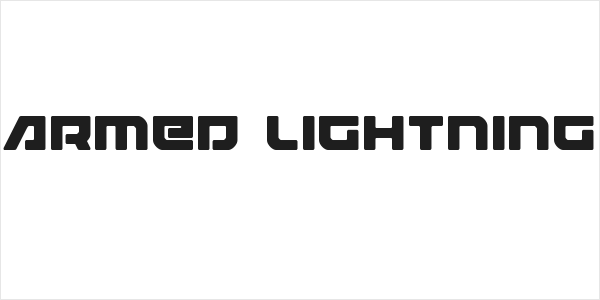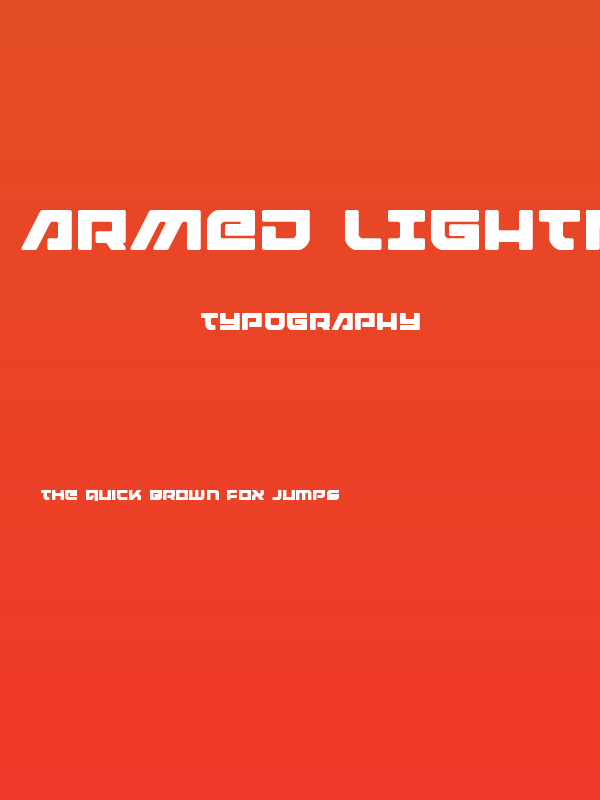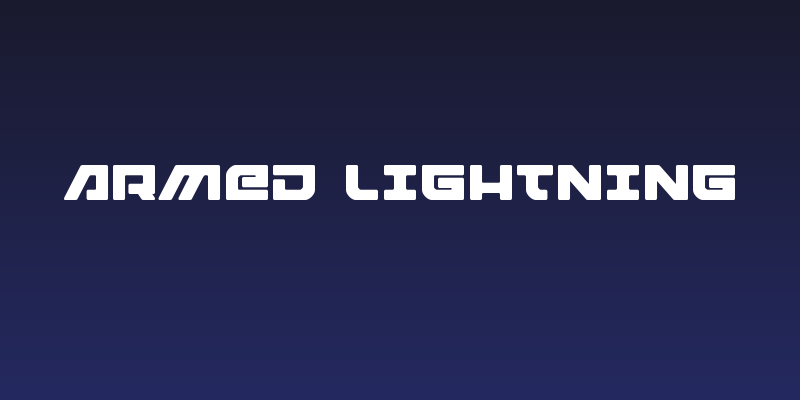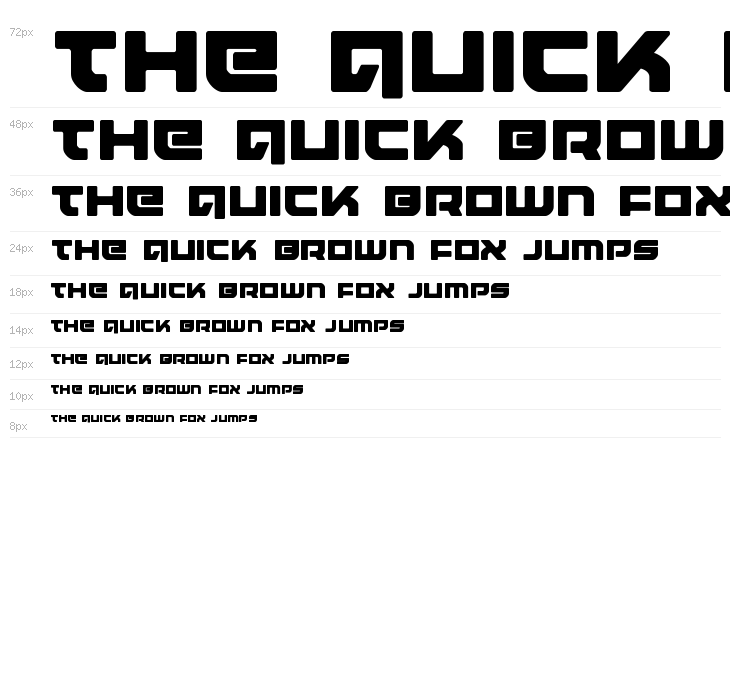
Armed Lightning Font
Armed Lightning Description
This font features a bold, futuristic design with geometric elements and sharp angles. The characters are uniformly thick, providing a strong and impactful appearance. The uppercase letters have a distinct, angular style, while the lowercase letters maintain a consistent geometric form. The numerals are bold and clear, matching the overall aesthetic. Special characters are designed to complement the font's modern and robust look. This font is ideal for projects that require a strong visual impact and a contemporary feel.
| Proposed Projects | Ideal for technology branding, sci-fi movie posters, video game titles, and modern advertising campaigns. |